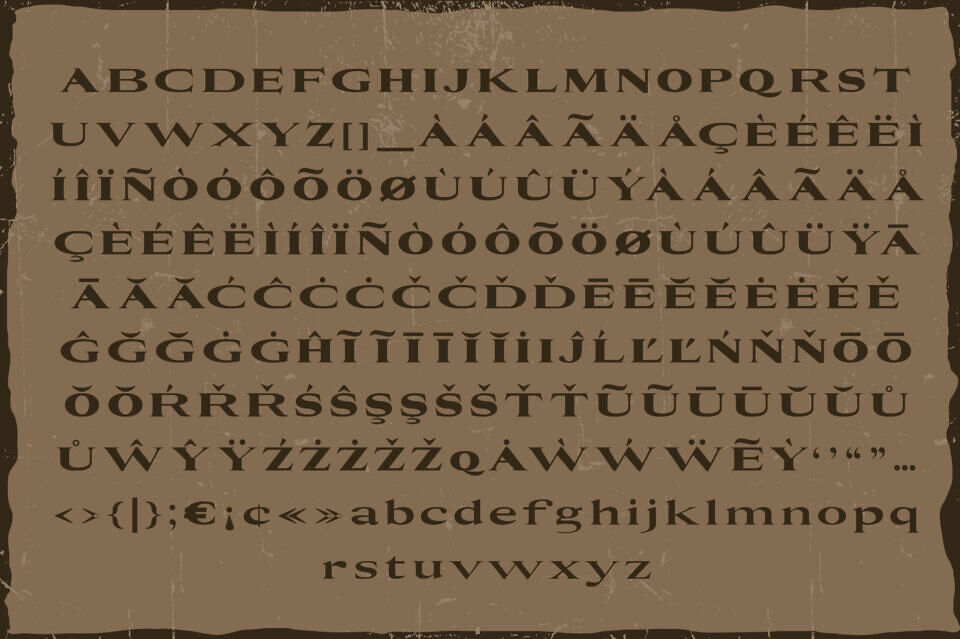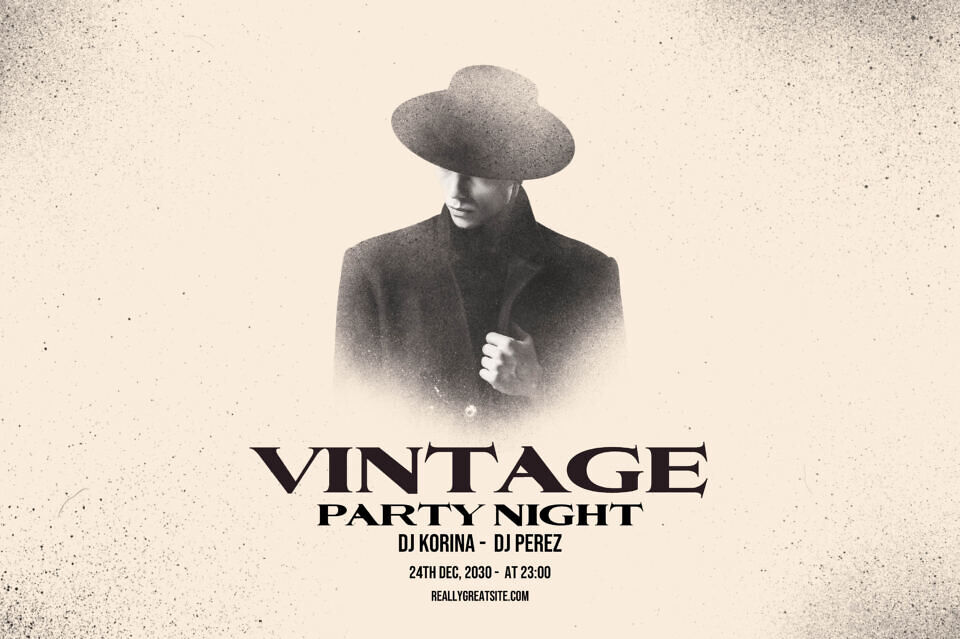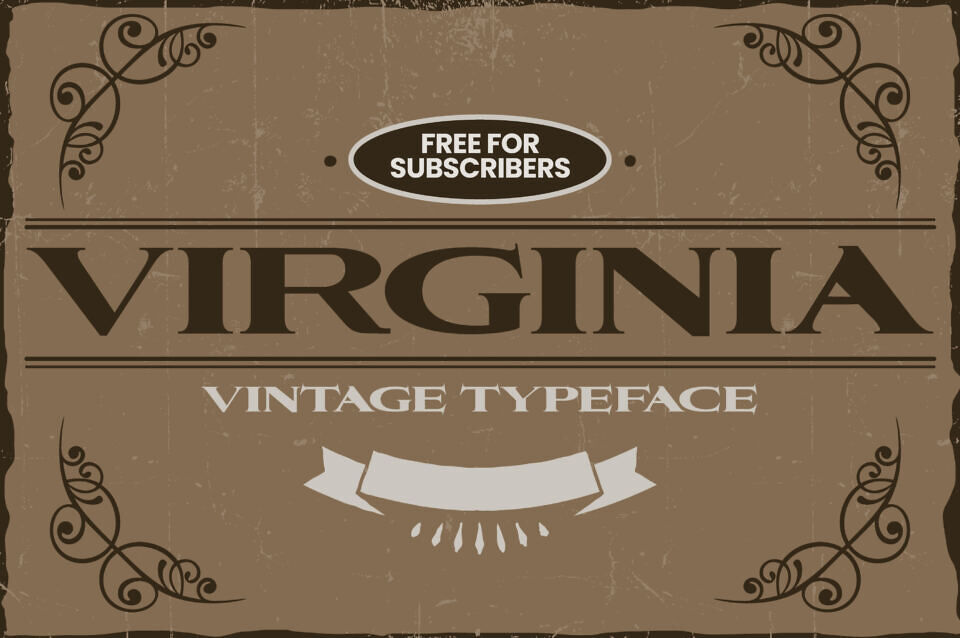
Virginia Font
Virginia is an American slab serif typeface that expresses the wild west cowboy American culture. It can be used to create themes such as shown in the font covers and it can fit perfectly any vintage, retro theme without any problems. It also suits book covers, magazines, comic magazines, posters, cartoon production, and many more!